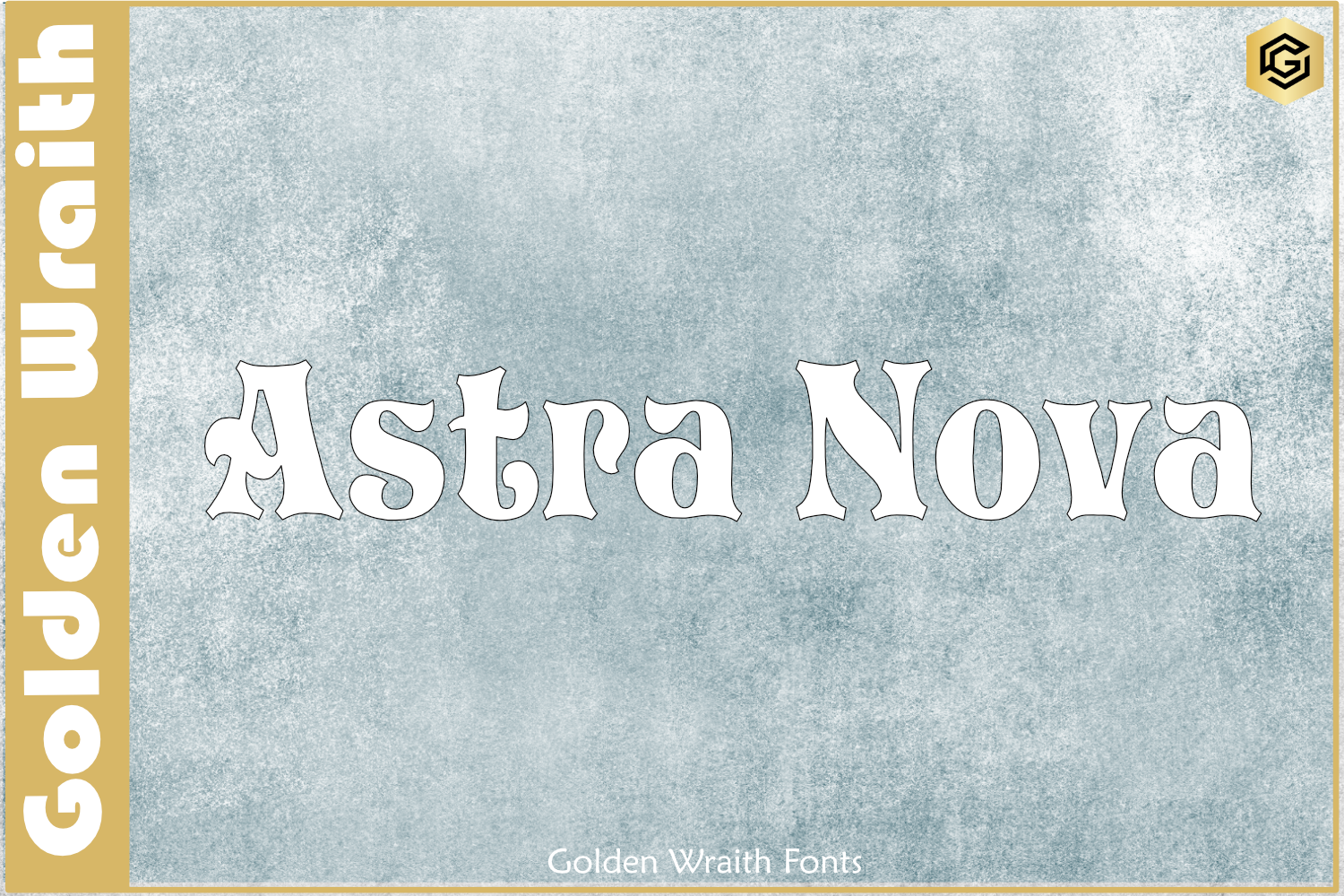
Astra Nova Font
“Astra Nova” is a cutting-edge font inspired by the cosmos. Its sleek design mirrors modern spacecraft aesthetics, exuding sophistication and innovation. Clean lines and smooth curves give it a futuristic allure, perfect for technology, sci-fi themes, or contemporary projects. The name itself signifies celestial aspirations and the pursuit of new frontiers. Versatile for digital interfaces, logos, and print media, “Astra Nova” captivates with its radiant charm. Like a guiding star, this font elevates your text, leading viewers on an awe-inspiring journey through limitless possibilities. Embrace the spirit of exploration and modernity with “Astra Nova,” propelling your designs to a stellar future.